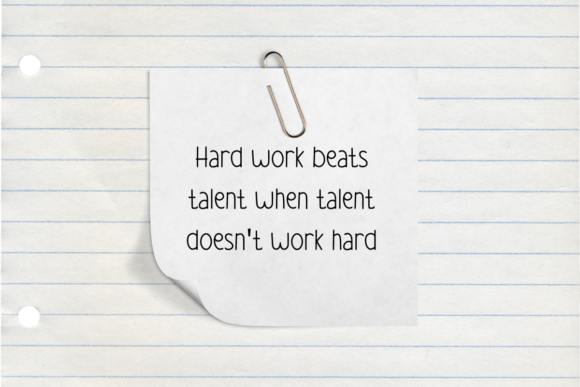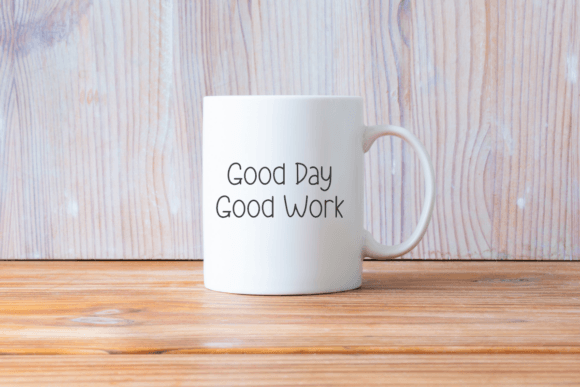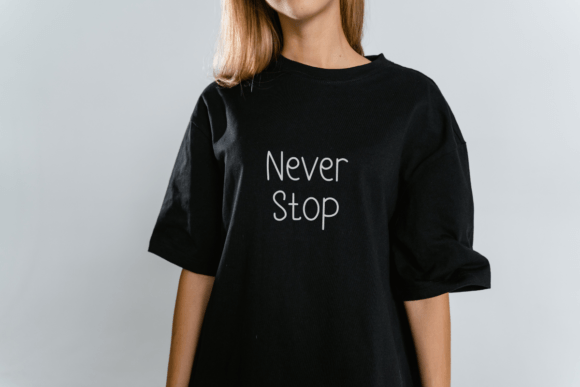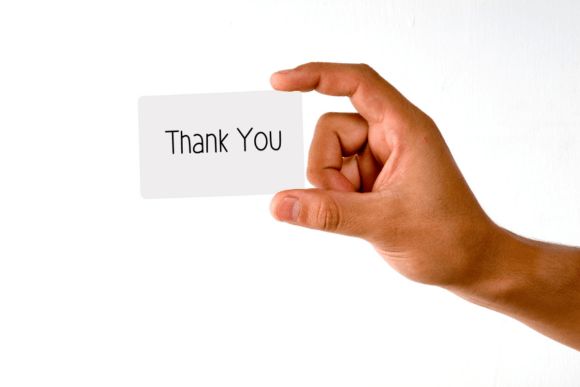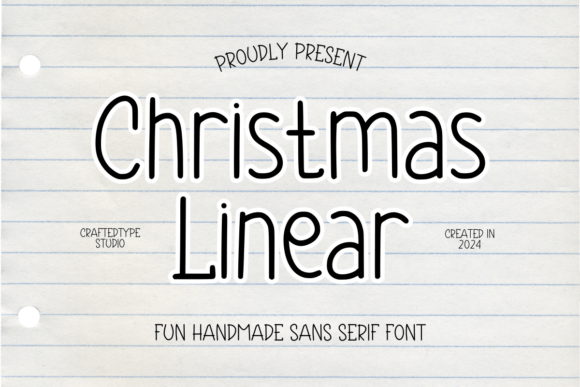
Introducing Christmas Linear Font: A Fun and Festive Sans Serif Font for Your Creative Projects
Are you looking for a font that captures the spirit of Christmas and adds a touch of fun to your designs? Look no further than Christmas Linear Font, a delightful sans serif font that’s perfect for a wide range of creative projects. In this article, we’ll explore the features and benefits of Christmas Linear Font, and show you can use it to elevate your designs and make them merry and bright.
What is Christmas Linear Font?
Christmas Linear Font is a modern sans serif font that’s specifically designed to bring a festive feel to your designs. With its clean lines, simple shapes, and cheerful vibe, this font is perfect for anyone looking to add a touch of Christmas magic to their projects. Whether you’re a designer, crafter, or DIY enthusiast, Christmas Linear Font is a versatile and fun font that’s sure to inspire your creativity.
Features of Christmas Linear Font
So, what makes Christmas Linear Font so special? Here are just a few of its key features:
• Fun and festive design: Christmas Linear Font is designed to capture the spirit of Christmas, with a playful and cheerful vibe that’s perfect for the holiday season.
• Sans serif style: The font’s clean and simple sans serif style makes it easy to read and versatile enough to use in a wide range of projects.
• Perfect for KDP and journals: Christmas Linear Font is a great choice for Kindle Direct Publishing (KDP) projects, journals, and notebooks, adding a touch of festive fun to your designs.
• Great for teaching materials and quotes: The font’s clear and easy-to-read design makes it perfect for teaching materials, quotes, and inspirational sayings.
• Ideal for scrapbooks and planners: Christmas Linear Font is a great choice for scrapbooks, planners, and other paper crafts, adding a touch of festive fun to your designs.
Uses for Christmas Linear Font
So, how can you use Christmas Linear Font in your creative projects? Here are just a few ideas to get you started:
• KDP and journals: Use Christmas Linear Font to create festive and fun covers for your KDP projects, journals, and notebooks.
• Teaching materials: Add a touch of Christmas cheer to your teaching materials, such as worksheets, lesson plans, and activity sheets.
• Quotes and inspirational sayings: Use Christmas Linear Font to create inspiring and motivational quotes, perfect for social media, blogs, or print projects.
• Scrapbooks and planners: Add a festive touch to your scrapbooks, planners, and other paper crafts with Christmas Linear Font.
• Greeting cards and memos: Use Christmas Linear Font to create fun and festive greeting cards, memos, and other correspondence.
Tips for Using Christmas Linear Font
Here are a few tips for getting the most out of Christmas Linear Font:
• Experiment with colors: Try pairing Christmas Linear Font with different colors and textures to create a unique and eye-catching design.
• Mix and match with other fonts: Combine Christmas Linear Font with other fonts to create a fun and playful design.
• Use it for headings and titles: Christmas Linear Font is perfect for headings and titles, adding a touch of festive fun to your designs.
Christmas Linear Font is a fun and festive sans serif font that’s perfect for a wide range of creative projects. With its clean design, cheerful vibe, and versatility, this font is sure to become a favorite in your design toolkit. Whether you’re a designer, crafter, or DIY enthusiast, Christmas Linear Font is a great choice for adding a touch of Christmas magic to your designs. So why not give it a try and see what festive creations you can come up with?
From KDP and journals to teaching materials, quotes, scrapbooks, and planners, Christmas Linear Font is the perfect choice for anyone looking to add a touch of festive fun to their designs. So go ahead, get creative, and make this holiday season one to remember with Christmas Linear Font!